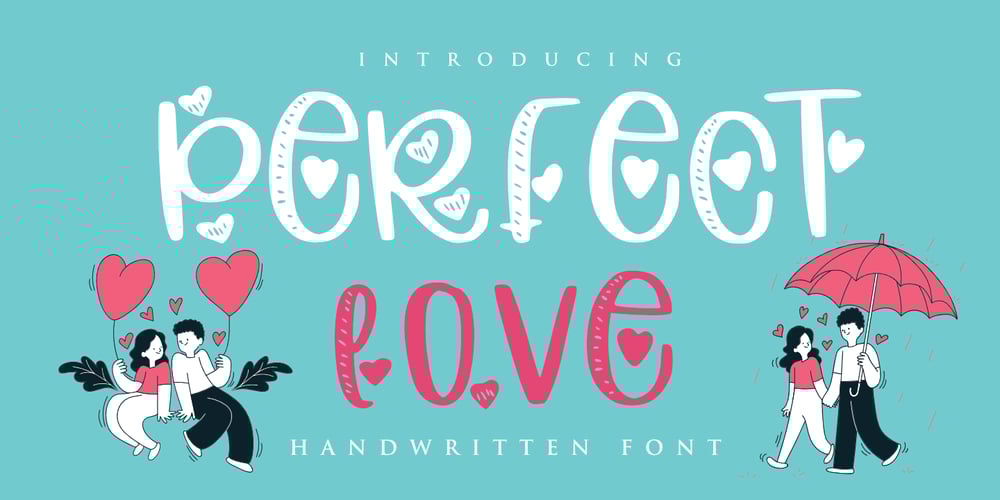
Perfect Love Font Family was designed by Mariyana and published by Goodigital13. Perfect Love contains 1 styles and family package options. wedding invitations, thank you cards, quotes, greeting cards, logos, business cards and every other design which needs a handwritten touch.well together! It is suitable for you to use in making t-shirt design, quote, label, packaging, logo type, or long writing. Because we have compiled kerning and matrices that are tailored to your needs.